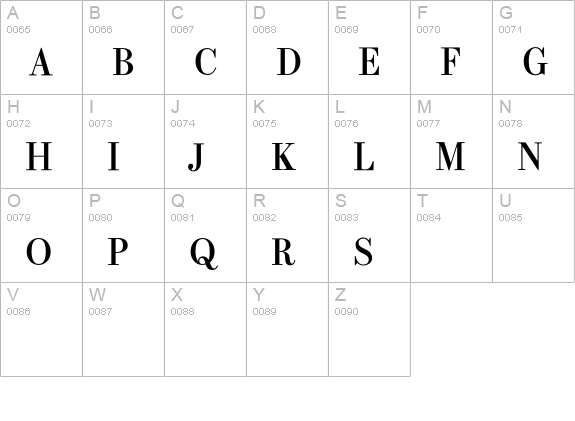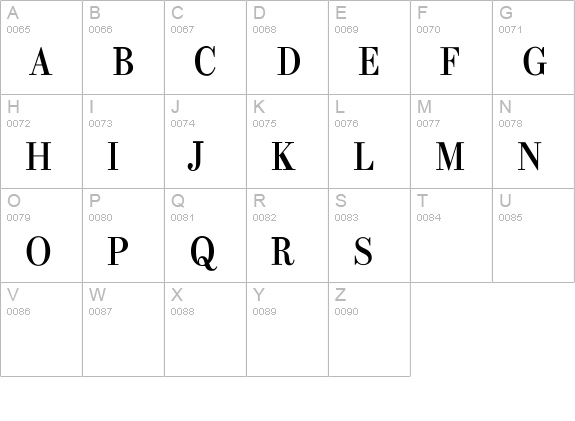
Ironbridge-Roman Font Details
Introducing the exquisite Ironbridge-Roman font, a timeless typeface that effortlessly blends classic elegance with a modern twist. This meticulously crafted font is a true embodiment of sophistication, making it a go-to choice for designers seeking to elevate their projects to new levels of refinement. Ironbridge-Roman boasts a captivating presence with its clean lines, balanced proportions, and subtly tapered serifs. Its graceful curves and sturdy structure make it a versatile choice for a wide range of design applications, including logos, branding, editorial projects, packaging, and more. What sets Ironbridge-Roman apart is not only its remarkable aesthetic appeal but also its accessibility. This extraordinary font is freely available for download at FontsMarket.com, making it easily accessible to both professionals and enthusiasts alike. Its availability offers an incredible opportunity to enhance your creative endeavors without any financial constraints. With Ironbridge-Roman, your designs will exude a timeless charm, capturing the attention of viewers and leaving a lasting impression. Whether you're working on a contemporary brand identity or a vintage-inspired publication, this font will effortlessly adapt to your vision, adding a touch of sophistication and refinement. Don't miss out on the chance to incorporate the captivating allure of Ironbridge-Roman into your design projects. Download it today at FontsMarket.com, and let this remarkable font elevate your creations to new heights of elegance and style.